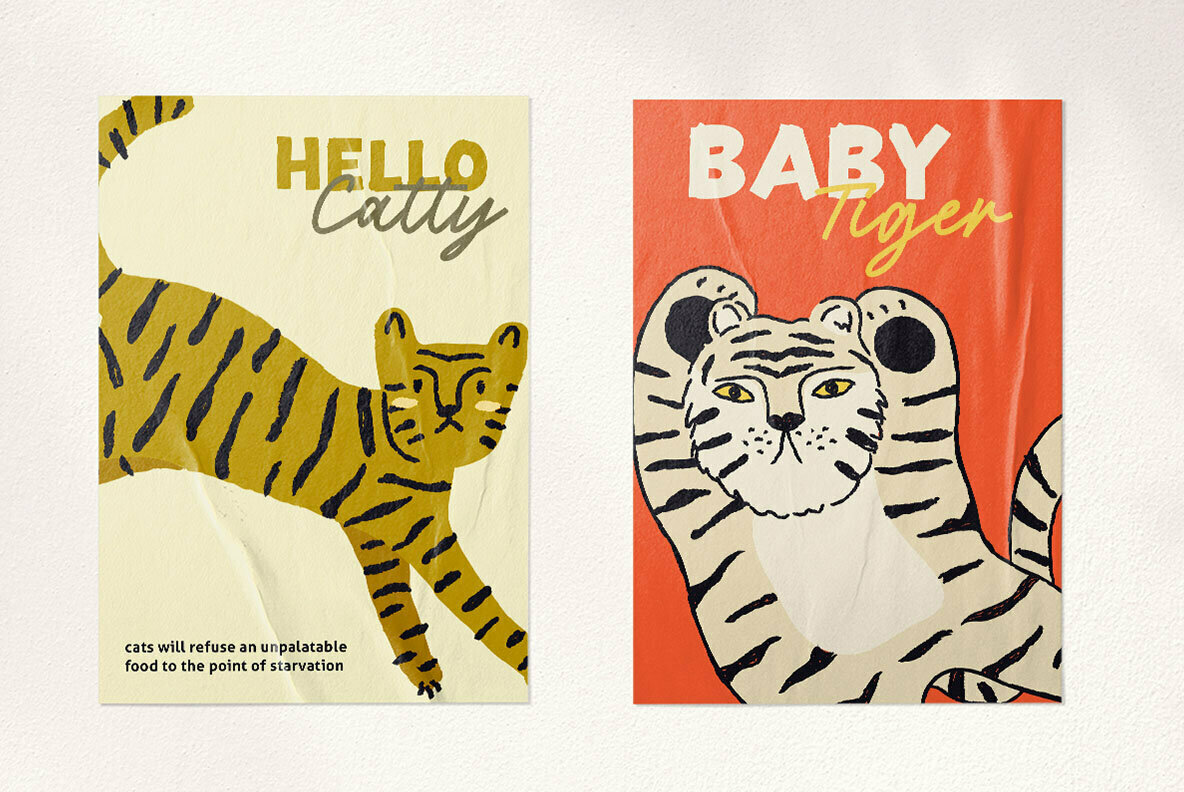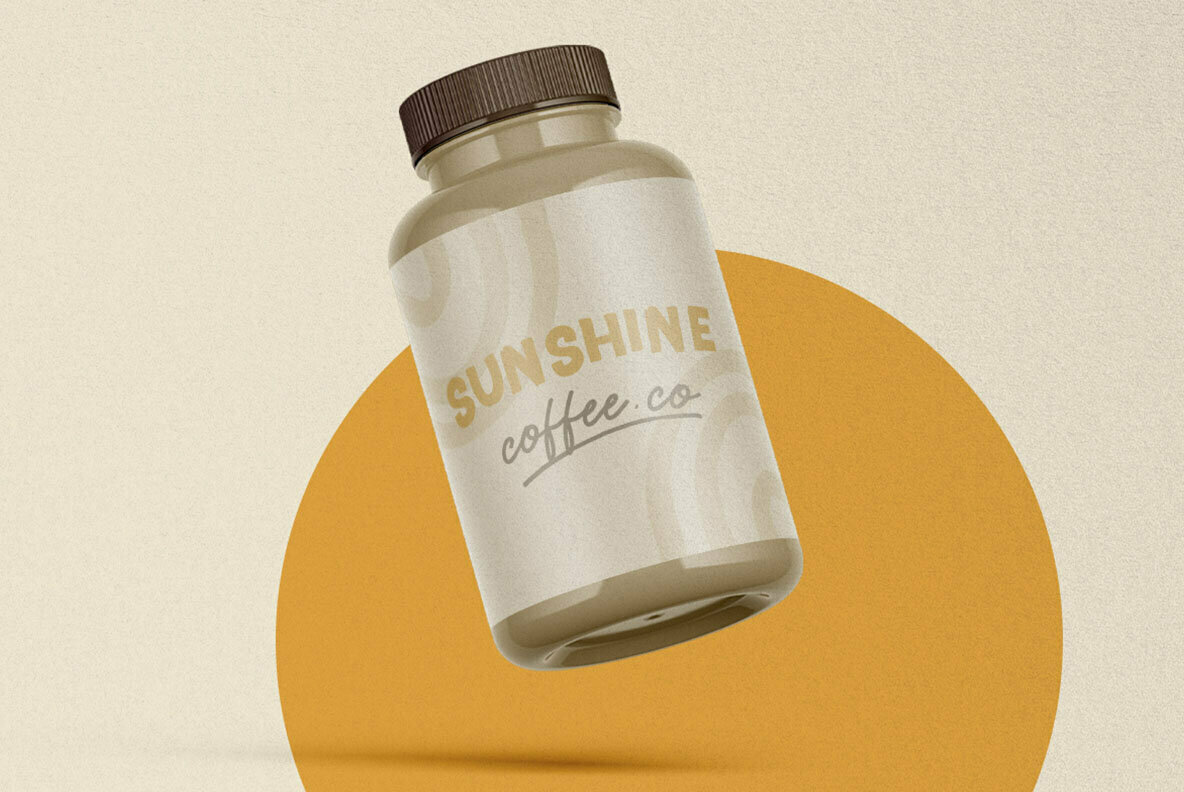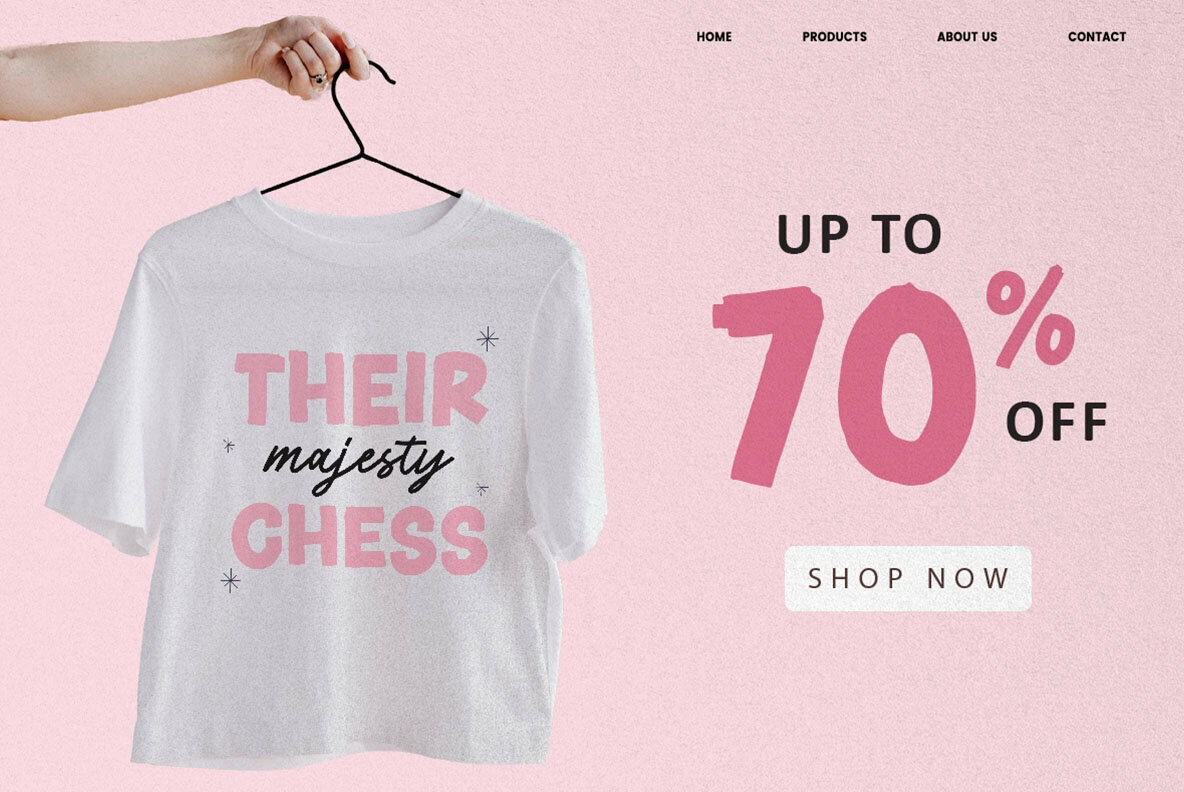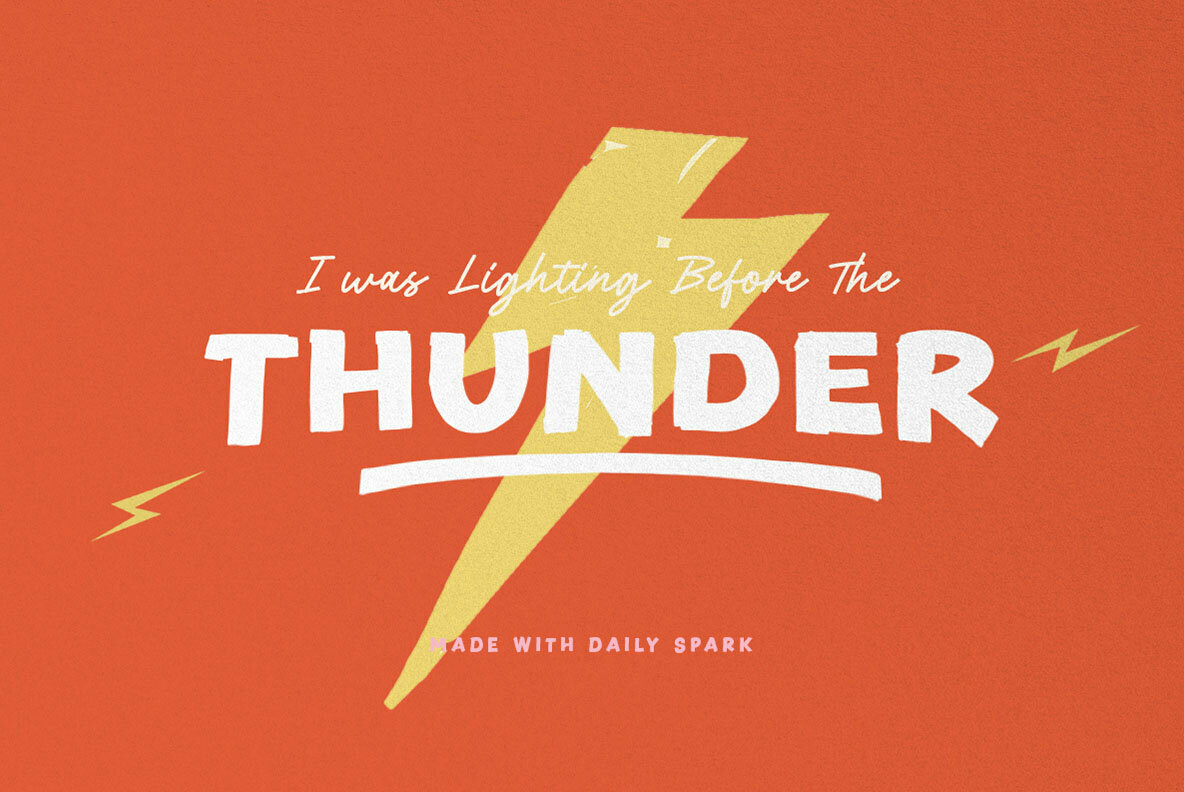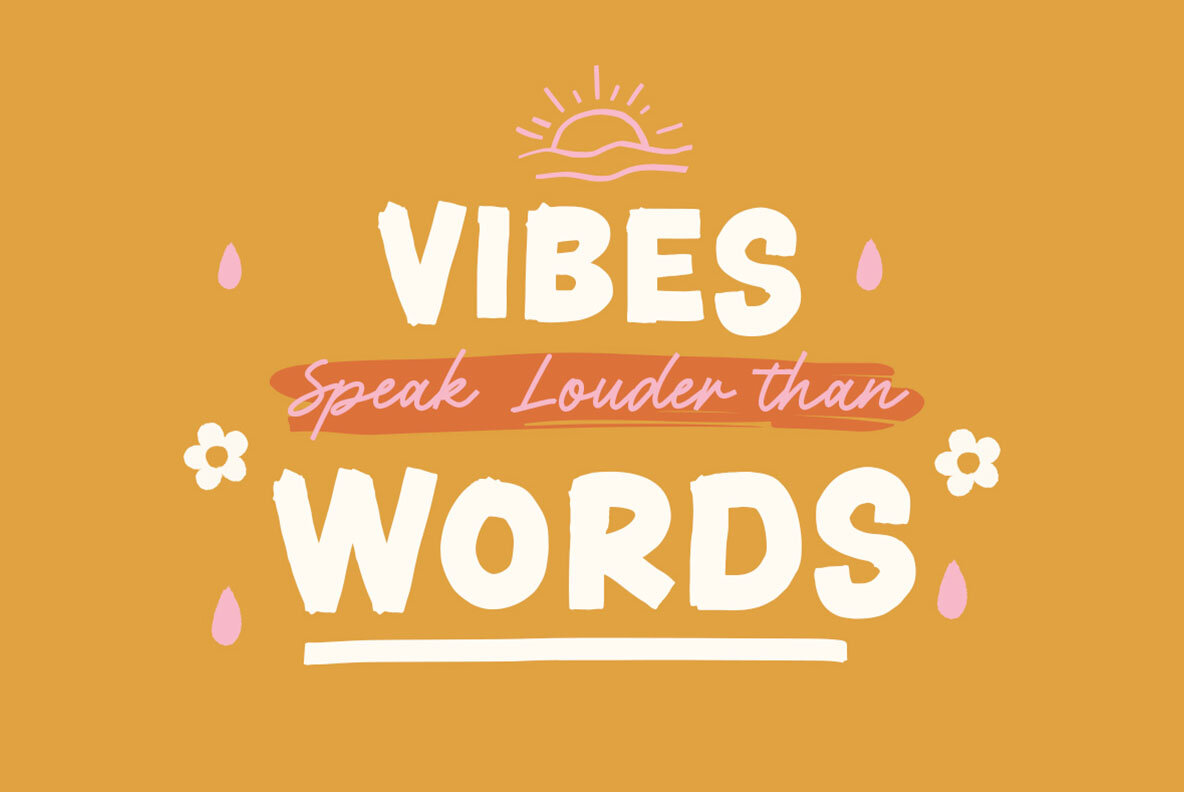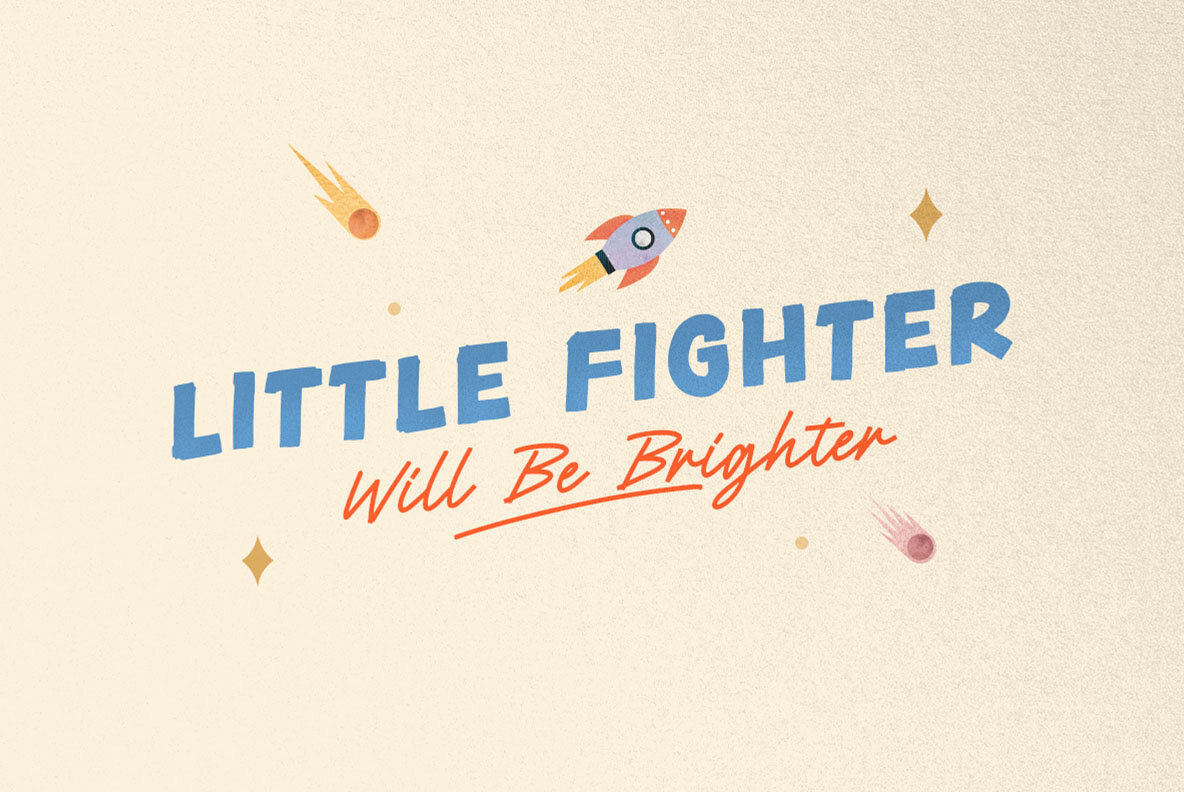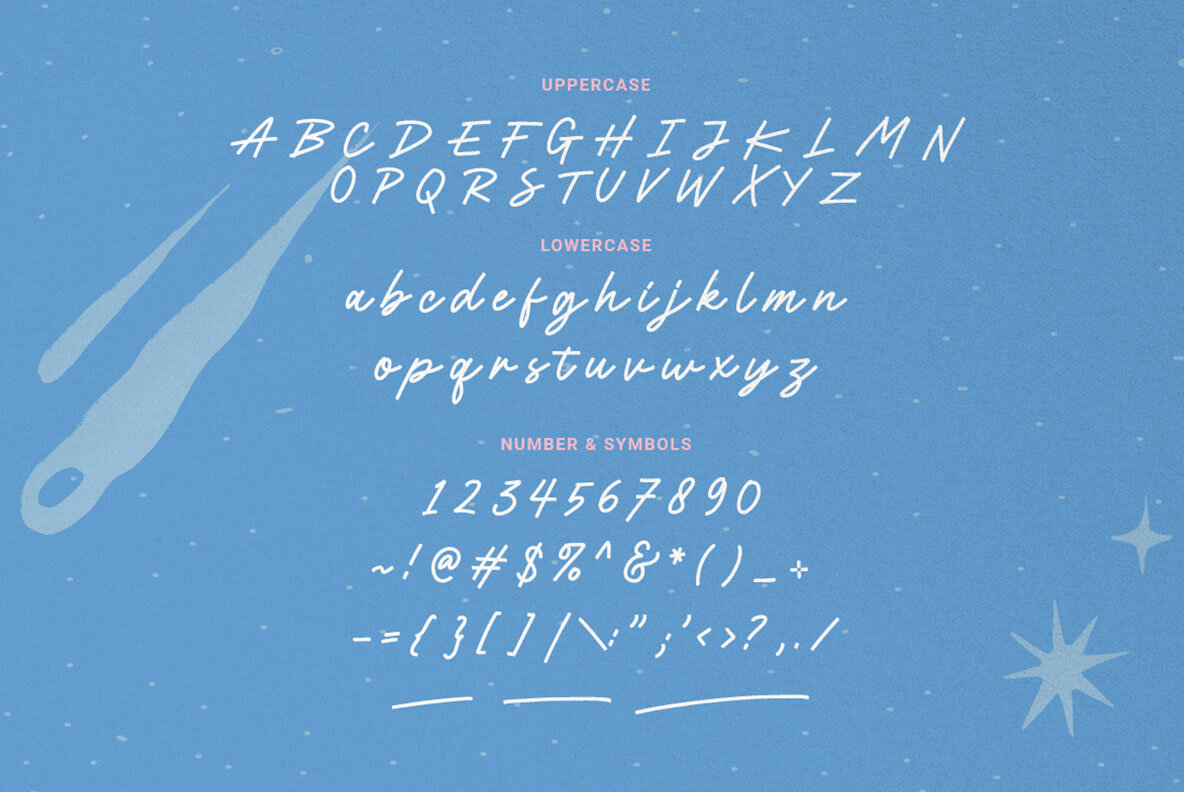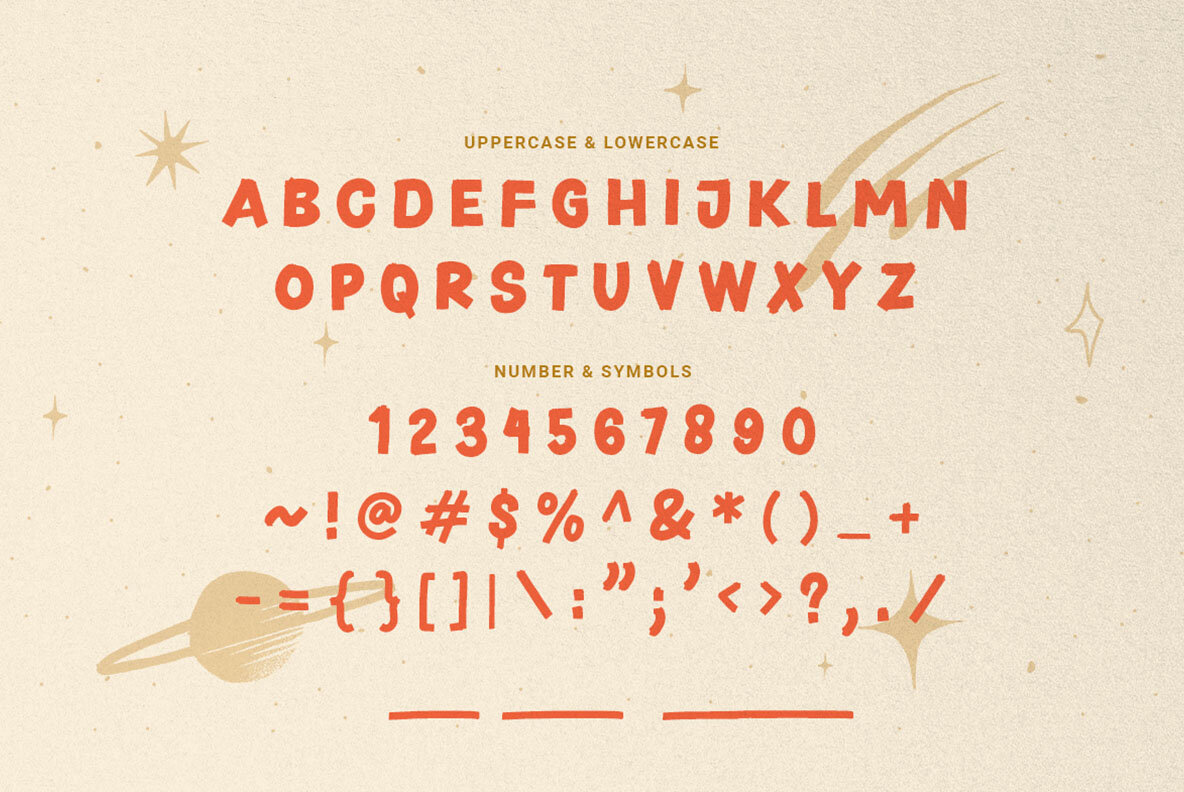
Daily Spark Font
Daily Spark Sans
Daily Spark Script
Daily Spark offers a blend of bold and script styles that coalesce seamlessly to enhance your designs. This versatile font duo is ideal for various applications, from branding to merchandise. Its handmade aesthetic makes it particularly suitable for inspiring quotes. Features:Daily Spark: A Harmonious Union of Bold Sans and Script Fonts